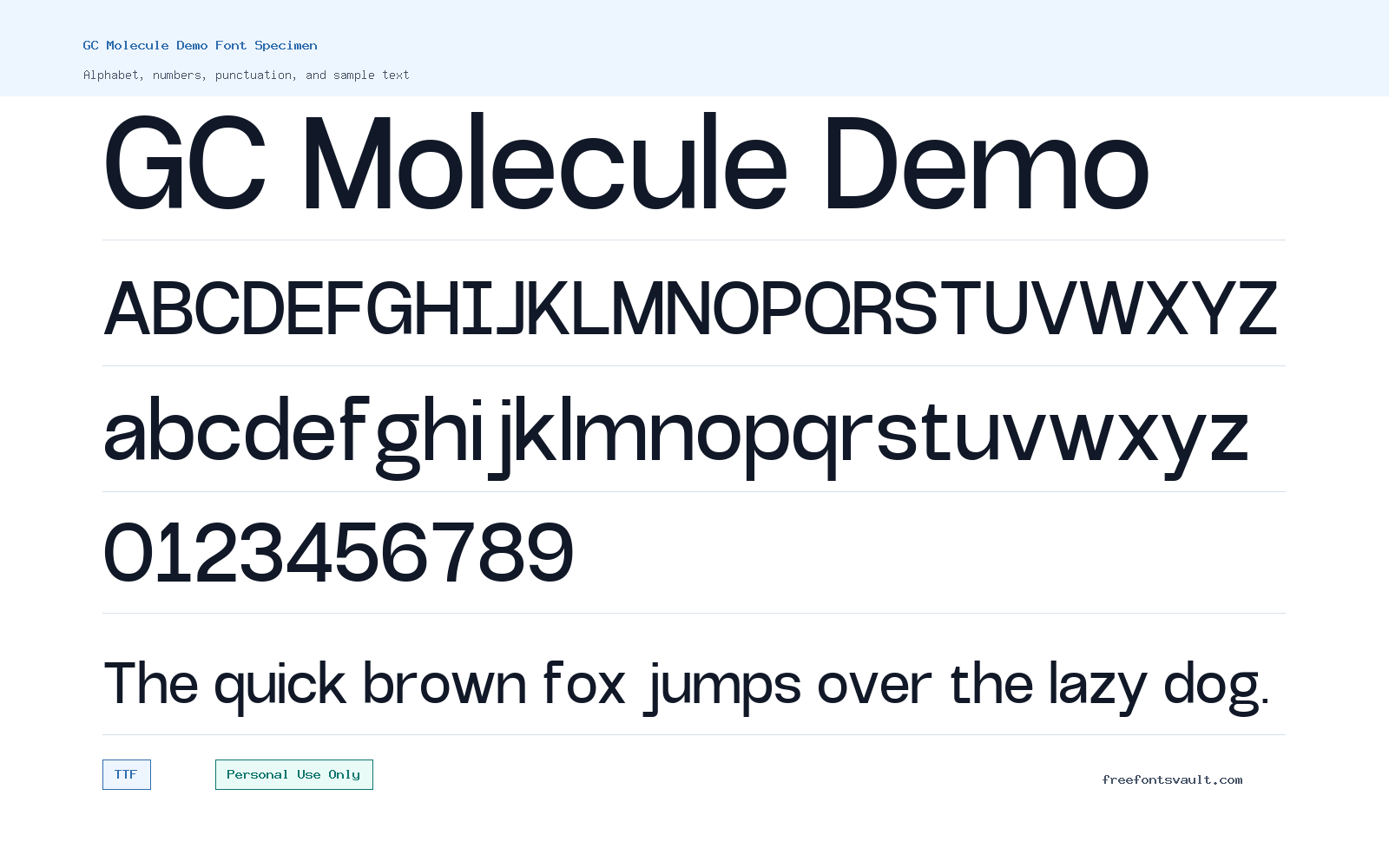
GC Molecule Demo
- Designer Ken Priska Dewirani of Glyphonic
GC Molecule Demo font.
GC Molecule Demo is a demo sans serif font family from Glyphonic with Regular and Bold TTF files. It is best treated as a display-friendly typeface to test in short text, headings, labels, and creative personal projects before you decide whether it fits your layout.
About GC Molecule Demo Font
GC Molecule Demo has a name that points toward a clean science or tech mood, and the license wording identifies it as a sans serif font family. That makes it a good candidate for layouts where you want a modern look without heavy decoration. Use the preview tool to check the exact letter shapes, spacing, punctuation, and number style, especially if your design depends on a few standout characters. With both Regular and Bold styles, you can build a simple hierarchy for titles, subheads, buttons, cards, or short poster text.
This demo family is better suited to compact uses than long reading until you have tested it carefully. Try your real project words in the preview, not just a sample alphabet. Brand names, game titles, science-themed captions, digital posters, thumbnails, packaging mockups, and event graphics can all reveal different spacing issues. Check uppercase and lowercase text separately, then test numbers and symbols if your design includes dates, prices, measurements, or usernames. Pair it with a calm body font rather than another attention-grabbing face. A neutral serif or plain humanist sans serif can keep the page readable while GC Molecule Demo handles the visual emphasis.
- Personal posters, title graphics, thumbnails, social images, and science or tech-inspired mockups.
- Short headings, labels, interface-style text, and logo draft experiments where you can review spacing by hand.
GC Molecule Demo is credited to Ken Priska Dewirani of Glyphonic.